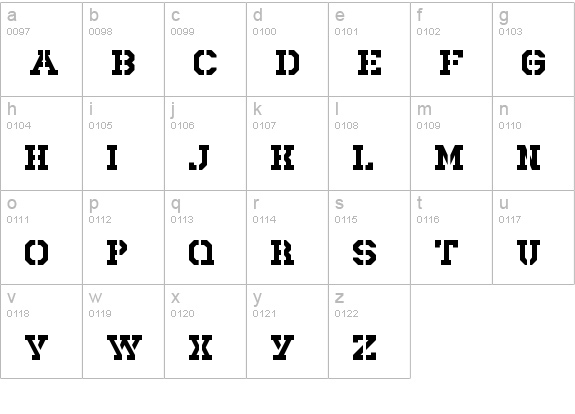
Rick Lobster Regular Font Details
Rick Lobster Regular is the standard, neutral variant in the Rick typeface family \xE2\x80\x94 well suited to general body text, paragraphs, and standard typographic work.
Rick Lobster Regular font is a whimsical and playful typeface that brings a touch of fun to any design project. With its quirky and unique style, this font is perfect for adding a touch of personality to logos, posters, invitations, and more. The smooth curves and bold lines of Rick Lobster Regular make it easy to read, while still exuding a sense of creativity and charm. Best of all, Rick Lobster Regular is available for free download at FontsMarket.com. This means you can easily access this delightful font and incorporate it into your designs without any cost. Whether you're a professional designer or a creative hobbyist, Rick Lobster Regular is a versatile and eye-catching font that will surely make your projects stand out. Download it today and let your creativity run wild!